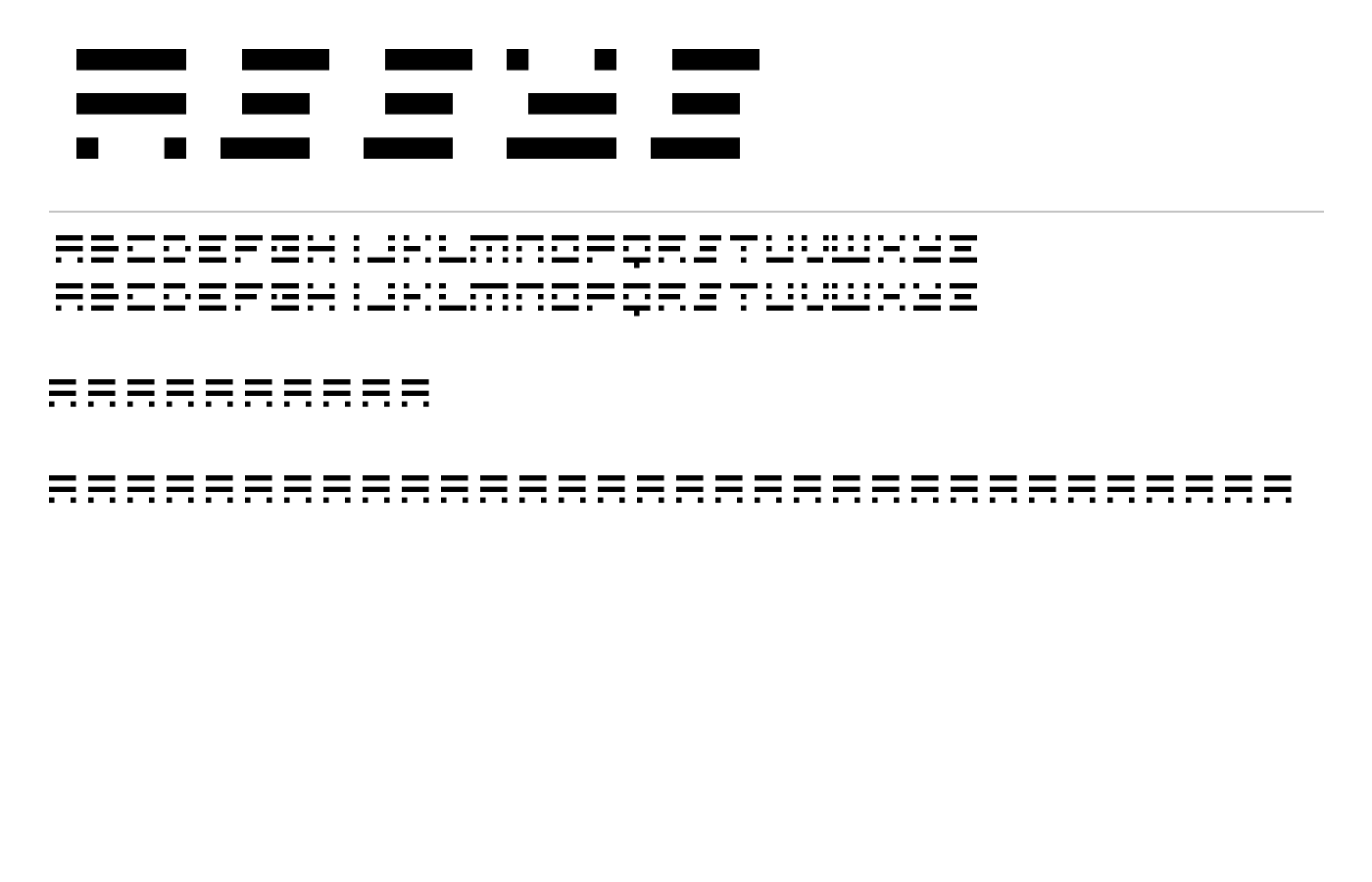
Assys Font is a distinctive, pixelated sans serif typeface characterized by its blocky style and consistent stroke weight, giving it a strong, retro digital vibe. Its compact and uniform letterforms make it ideal for use in technology-themed designs, gaming interfaces, and digital displays where a futuristic, minimalist aesthetic is desired. This font works best for headlines, logos, and branding that aim to convey a modern, tech-savvy personality with a nostalgic nod to early digital typography.
Assys Font